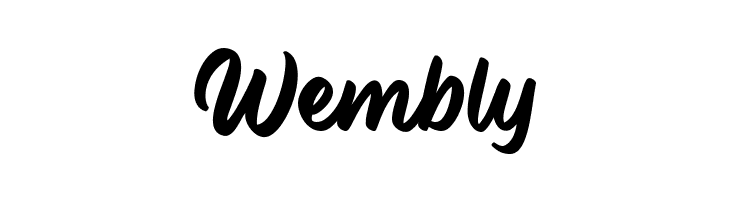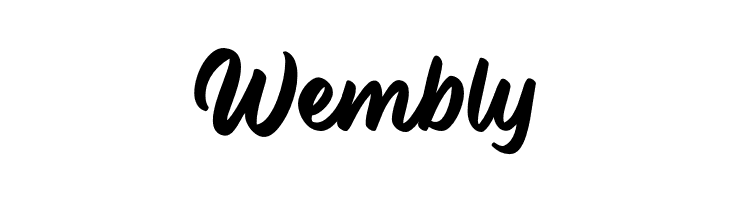
A bold, cursive font with smooth, flowing lines and a strong presence.
A bold, expressive script font with fluid, interconnected strokes and a handwritten appearance.